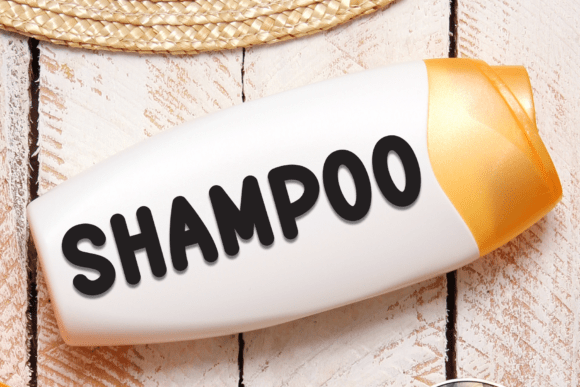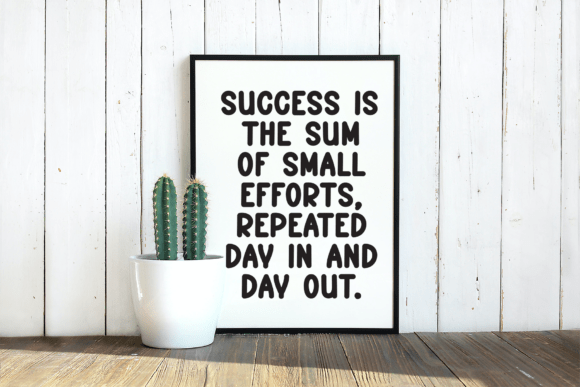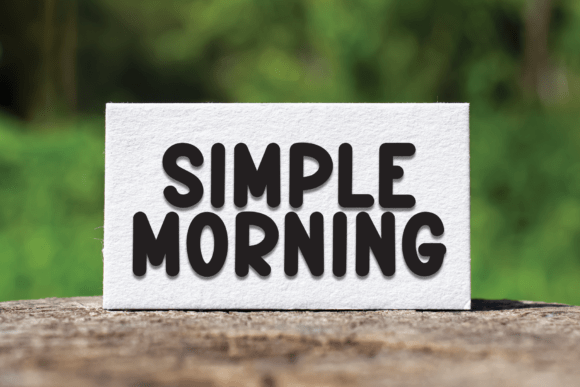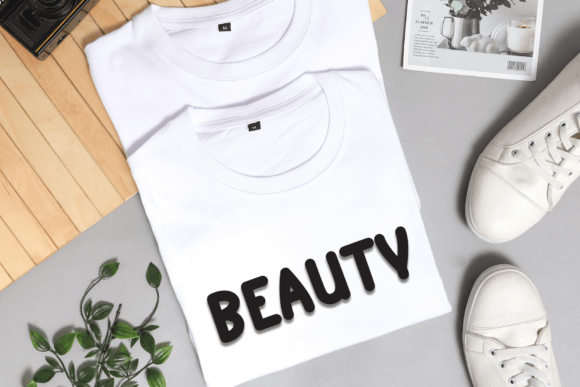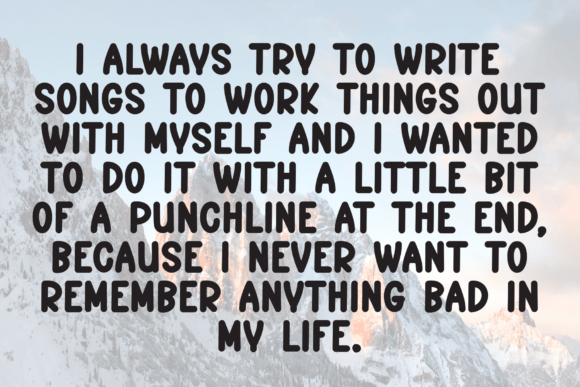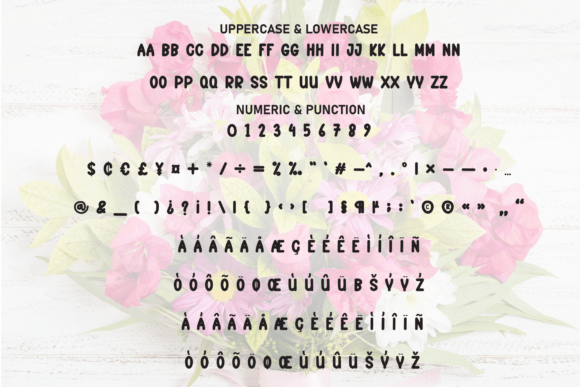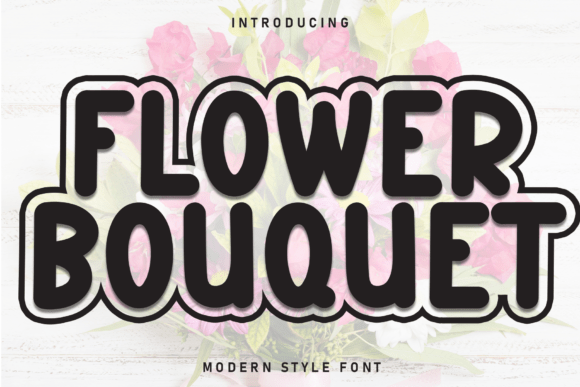
Introducing Flower Bouquet Font: The Perfect Blend of Warmth and Clarity
Are you a designer or crafter looking for a font that can add a touch of warmth and personality to your projects? Look no further than the Flower Bouquet Font, a casual and neat display font designed to bring a sense of approachability and charm to your designs. In this article, we’ll take a closer look at the features and benefits of Flower Bouquet Font, and explore how it can elevate your branding, headlines, and everyday designs.
A Clean and Approachable Design
Flower Bouquet Font boasts a clean structure and approachable style, making it perfect for a wide range of design applications. The font’s balanced letterforms offer excellent readability, ensuring that your message is conveyed clearly and effectively. At the same time, the font’s charming and inviting aesthetic adds a touch of personality to your designs, making them feel more genuine and engaging.
Perfect for Branding and Headlines
Flower Bouquet Font is particularly well-suited for branding and headlines, where its clean and approachable design can help to create a strong and lasting impression. The font’s warm and inviting aesthetic makes it perfect for use in logos, taglines, and other marketing materials, while its excellent readability ensures that your message is conveyed clearly and effectively.
Everyday Designs Made Easy
But Flower Bouquet Font isn’t just limited to high-end branding and marketing materials. Its approachable and charming aesthetic makes it perfect for everyday designs, such as social media graphics, blog posts, and more. Whether you’re a designer or crafter looking to add a personal touch to your projects, or a business owner looking to create engaging and effective marketing materials, Flower Bouquet Font is the perfect choice.
Key Features of Flower Bouquet Font
- Clean and approachable design: Flower Bouquet Font features a clean and approachable design that is perfect for a wide range of design applications.
- Balanced letterforms: The font’s balanced letterforms offer excellent readability, ensuring that your message is conveyed clearly and effectively.
- Charming and inviting aesthetic: The font’s charming and inviting aesthetic adds a touch of personality to your designs, making them feel more genuine and engaging.
- Perfect for branding and headlines: Flower Bouquet Font is particularly well-suited for branding and headlines, where its clean and approachable design can help to create a strong and lasting impression.
Why Choose Flower Bouquet Font?
So why choose Flower Bouquet Font for your design projects? Here are just a few reasons:
- Unique and eye-catching: Flower Bouquet Font is a unique and eye-catching font that can help your designs stand out from the crowd.
- Highly versatile: The font’s clean and approachable design makes it perfect for a wide range of design applications, from branding and headlines to everyday designs.
- Easy to read: The font’s balanced letterforms offer excellent readability, ensuring that your message is conveyed clearly and effectively.
- Perfect for designers and crafters: Flower Bouquet Font is perfect for designers and crafters looking to add a personal touch to their projects.
In conclusion, Flower Bouquet Font is a casual and neat display font that is perfect for designers and crafters looking to add a touch of warmth and personality to their projects. With its clean structure, approachable style, and balanced letterforms, it’s perfect for branding, headlines, and everyday designs. Whether you’re looking to create engaging and effective marketing materials, or simply want to add a personal touch to your projects, Flower Bouquet Font is the perfect choice.